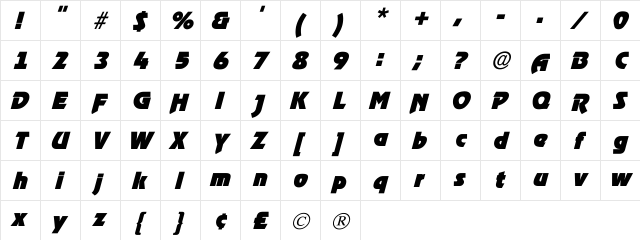
RoostHeavy Italic Italic
Design Context for RoostHeavy Italic Typeface
RoostHeavy Italic is a composed and adaptable typeface that performs quietly and consistently across a wide range of design contexts. Its italic angle brings a sense of urgency and motion to the letterforms.
Pro Tip: Use RoostHeavy Italic for emphasis, pull quotes, and subheadings where its slanted energy can add rhythm to the layout.